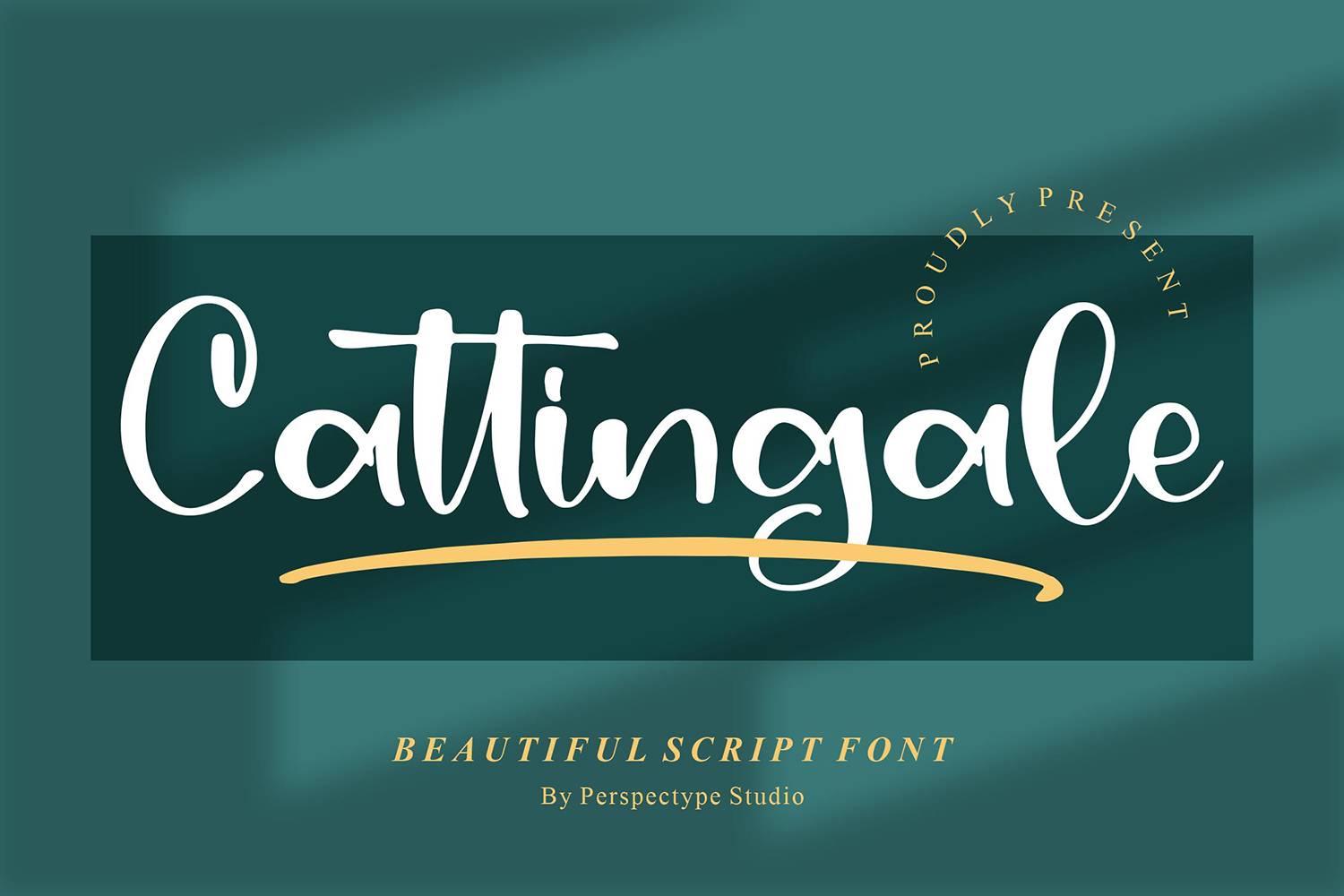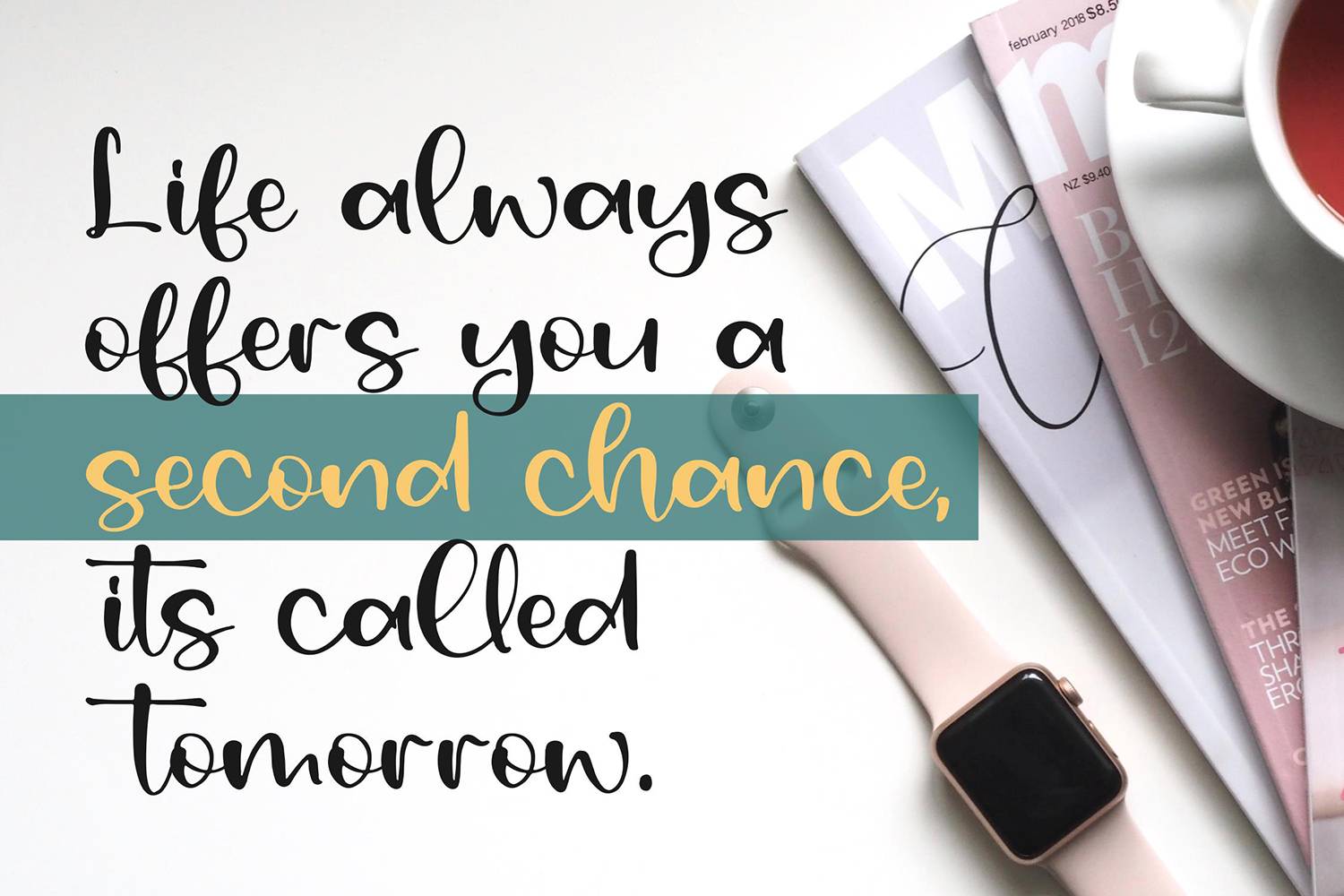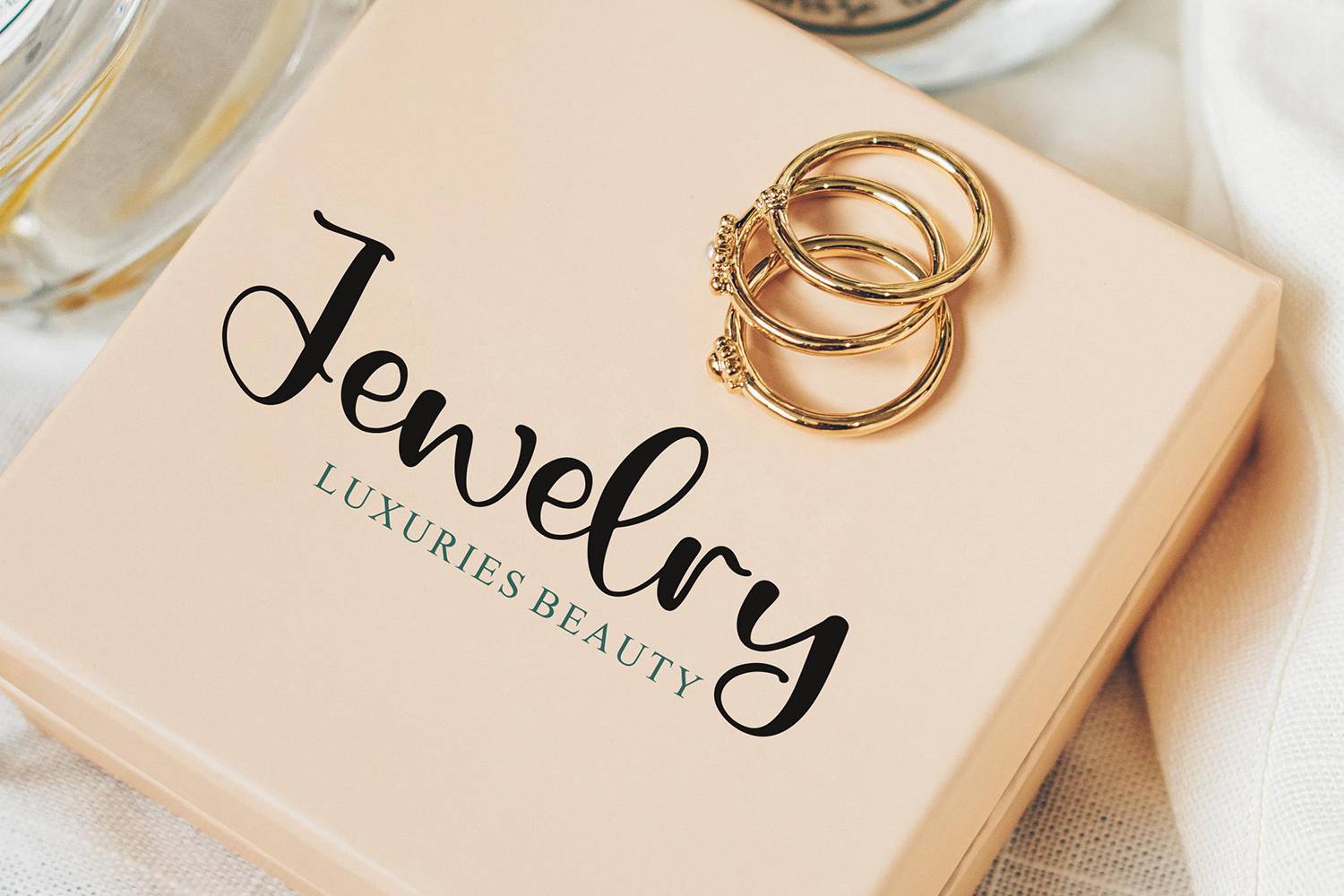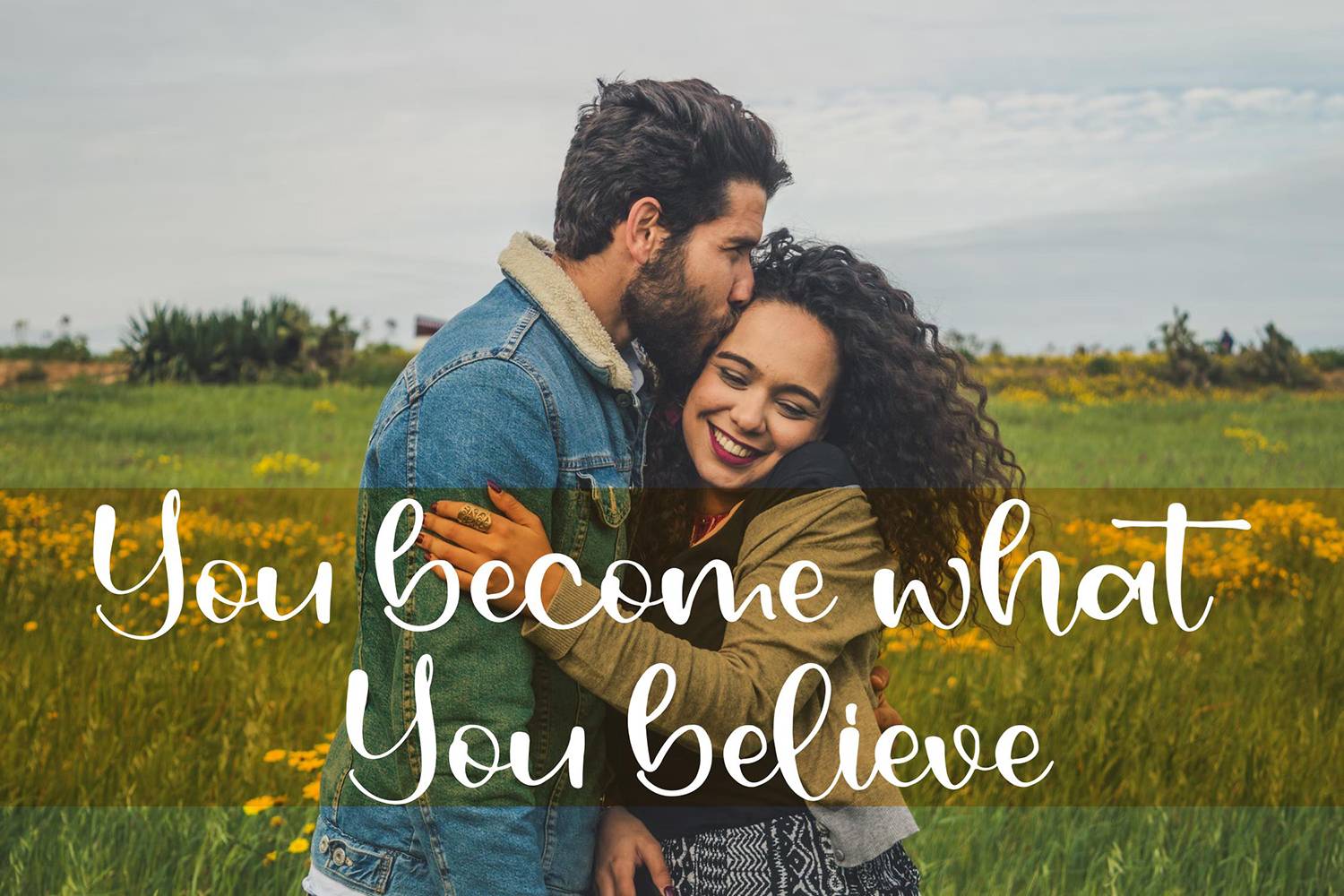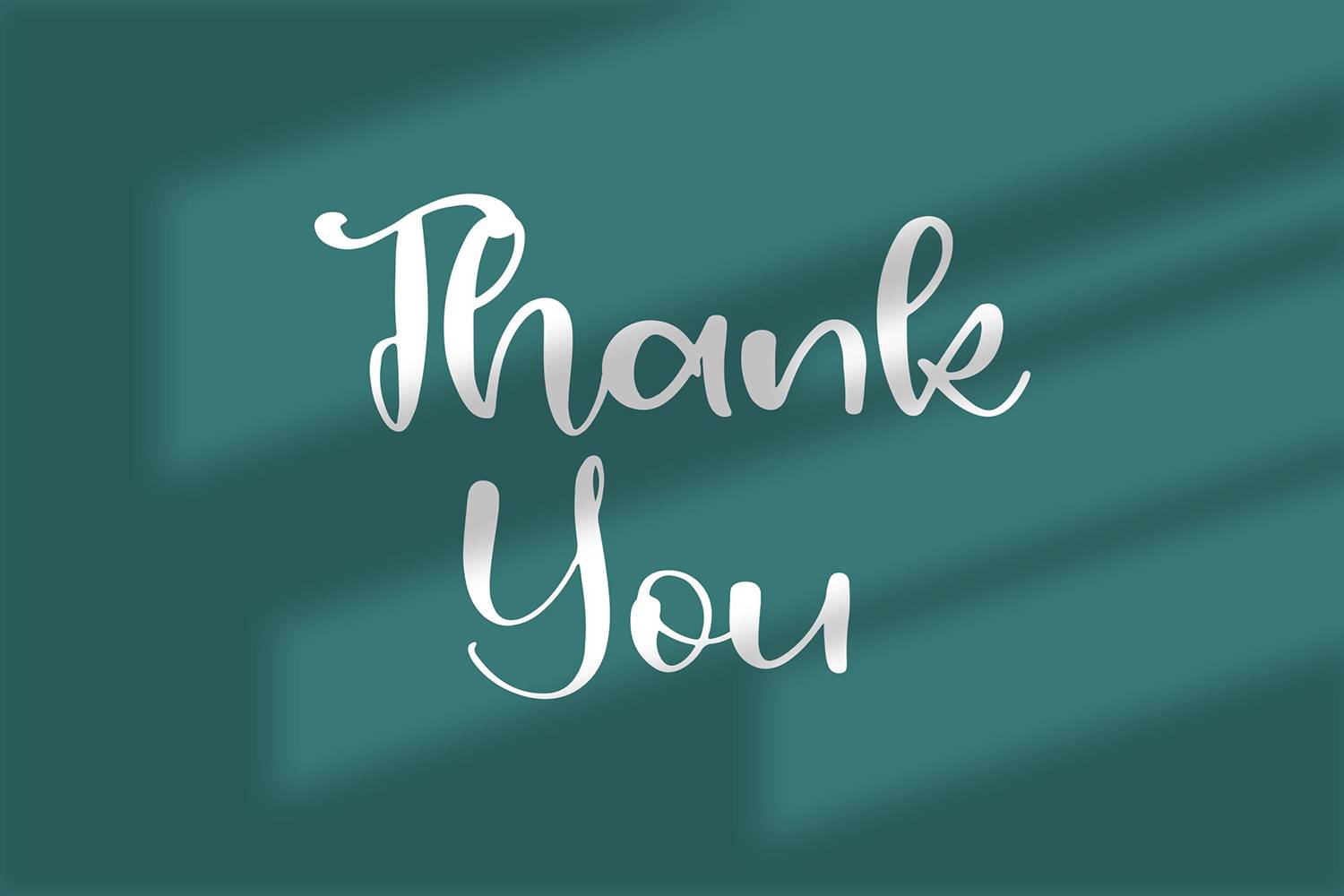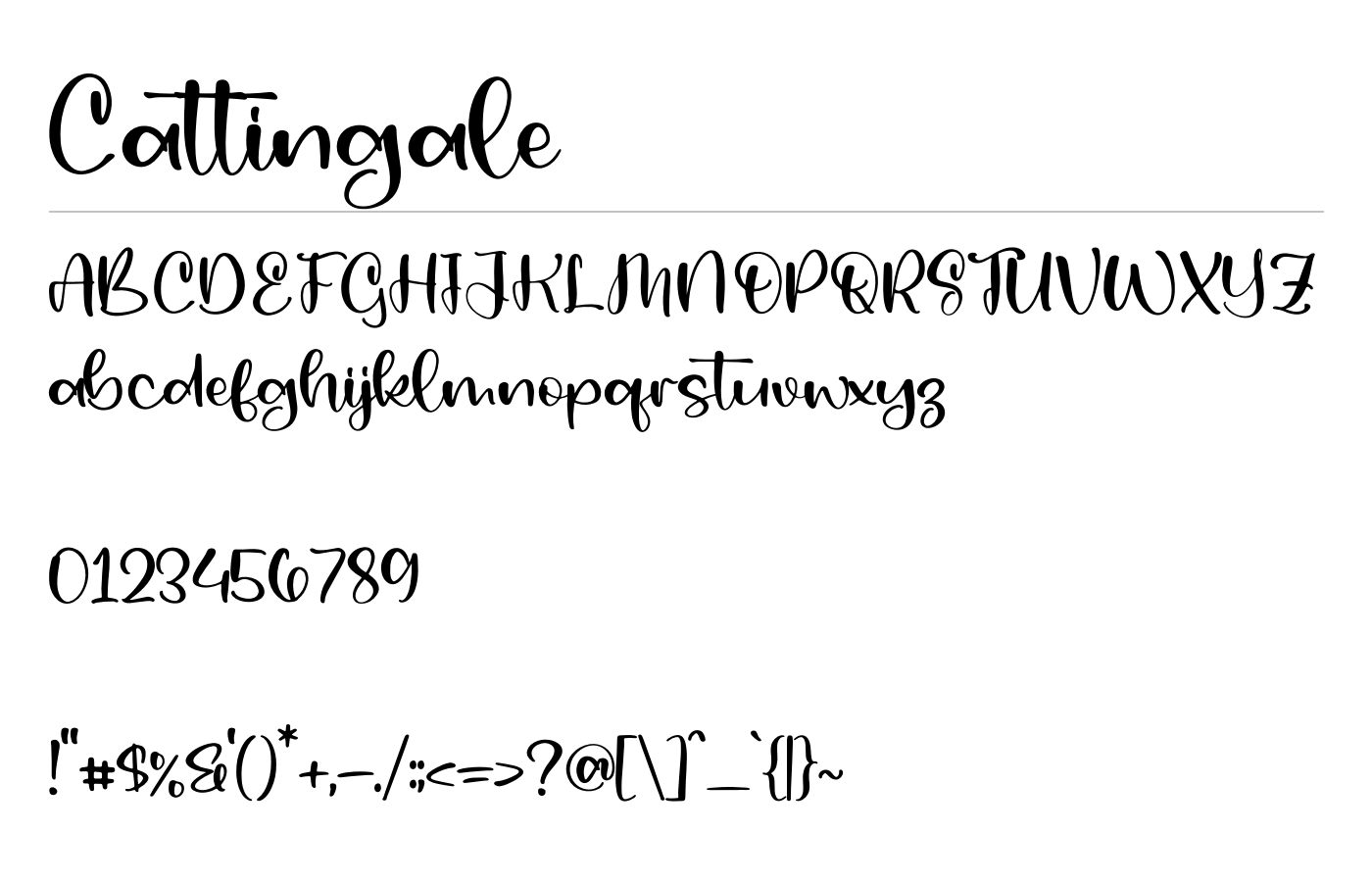
Cattingale is a playful and elegant script font with a hand-drawn feel, featuring smooth, flowing strokes and charming unique letterforms. Its medium weight and balanced shapes make it perfect for adding a friendly yet stylish touch to invitations, branding, and creative projects. This font works especially well in design contexts where warmth and personality are desired.
Cattingale Font
About Cattingale Font